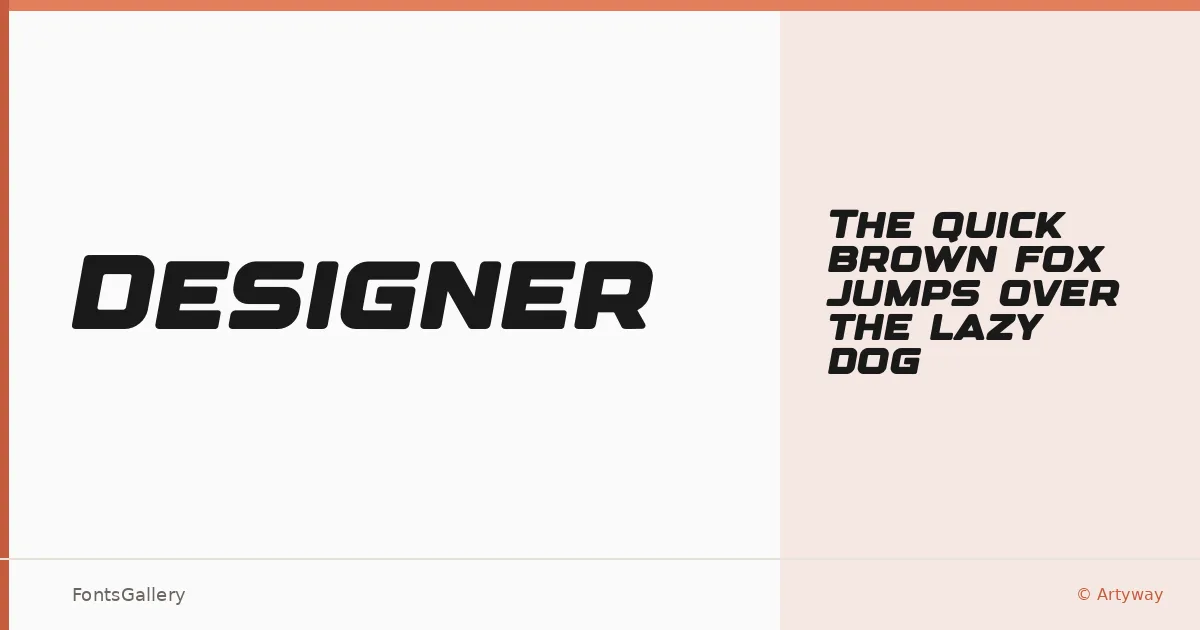
About Designer Font
There is a sharpness to the letterforms here — geometric, deliberate, carrying the kind of authority you expect from a display face built for impact. Artyway's Yehor Lisnyi drew this single Regular weight with branding and headline work clearly in mind, keeping the construction tight and the personality unmistakably contemporary.
This is a display face that reads as bold even at its one weight, with a futuristic edge that feels modern without chasing trends. The forms are professional and structured, suited to Latin-language settings where clarity at large sizes matters. Delivered as an OTF file, it is clean to install and reliable in layout applications where headline typography needs to hold the room.
The face earns its place in logo lockups, poster headlines, branding identities, and T-shirt graphics — anywhere a single word or short phrase needs to land with presence. For body copy or secondary text, it sits well alongside Helvetica or Josefin Sans for neutral balance, Asap when you need something a touch warmer, or the more editorial weight of Canela and ABC Arizona when contrast between display and text is the point.